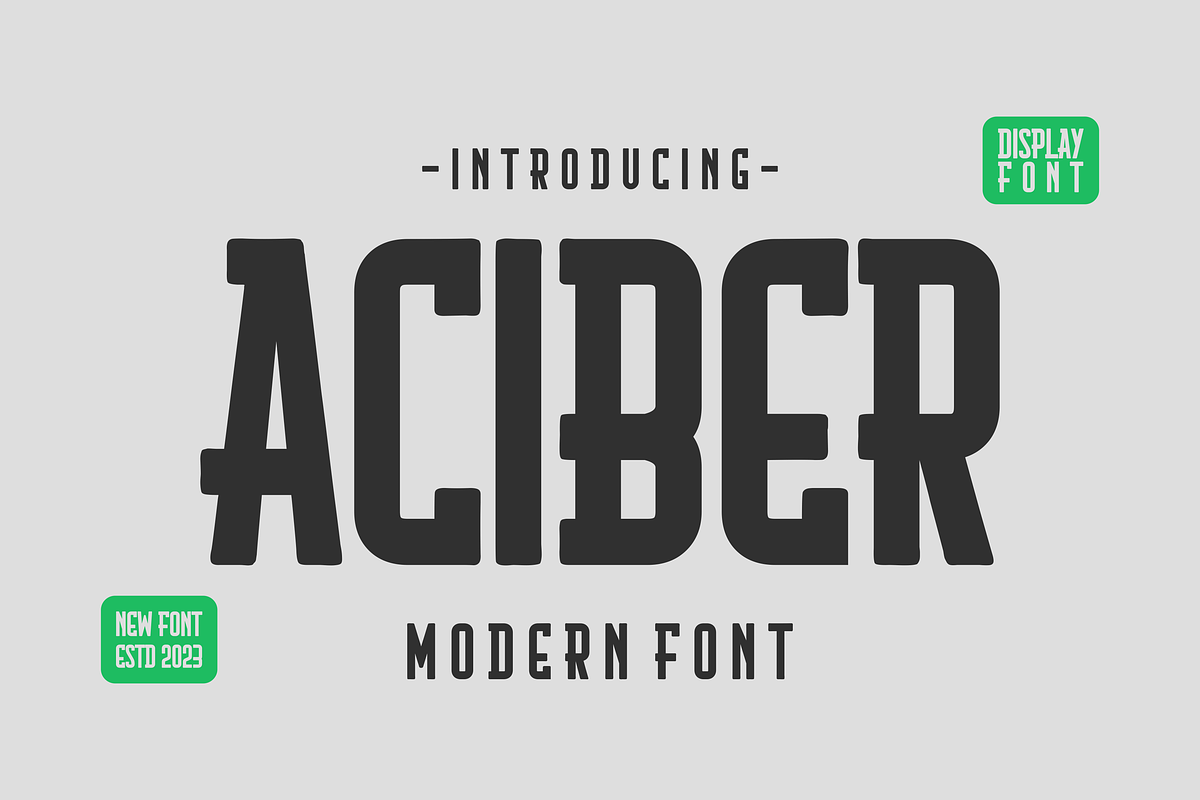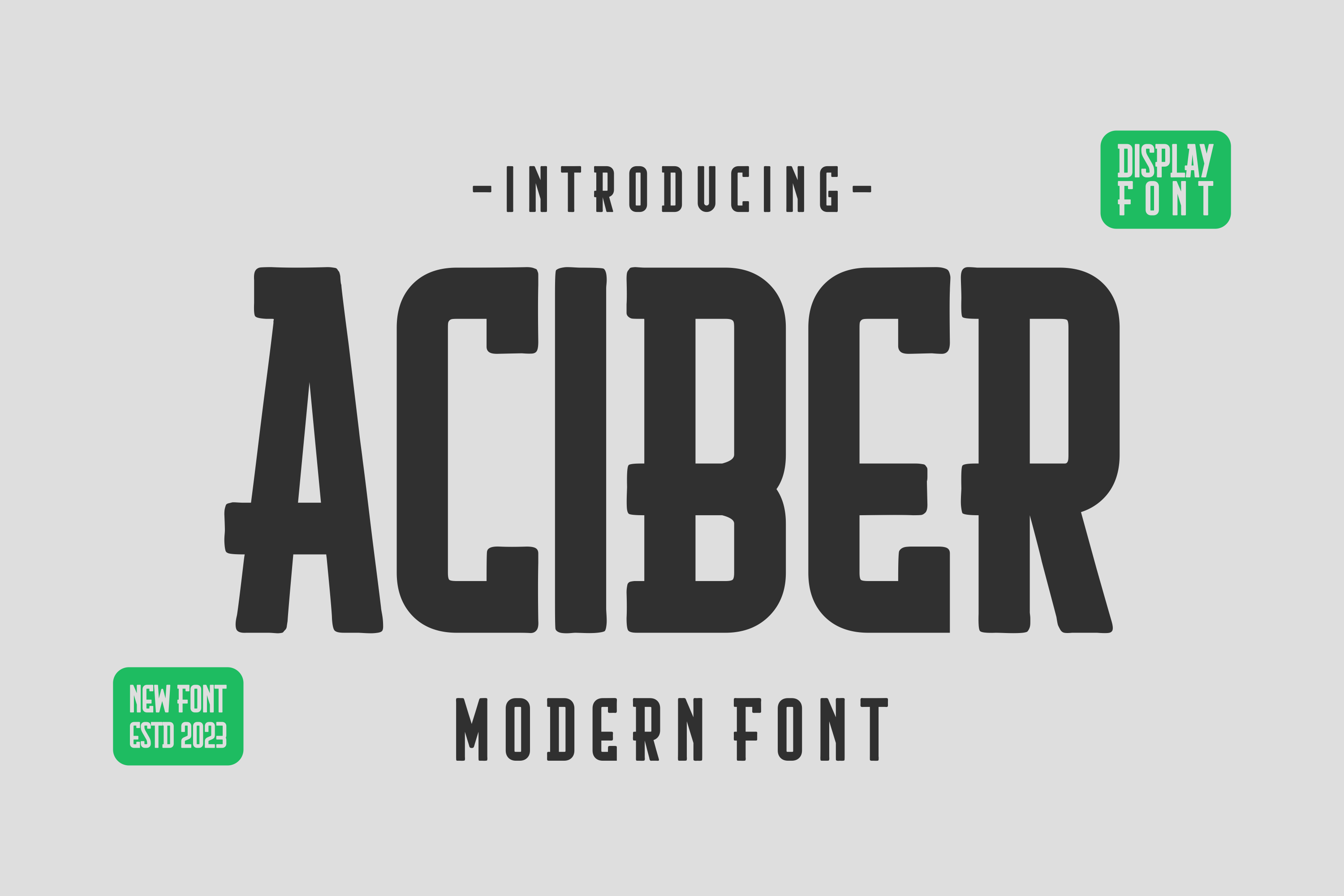
Aciber - Slab Serif Font
Perfectly suited on print/screen. it’s perfect for Branding, name card, poster, logo, magazine, cover, banner, t-shirt and headers, or even large-scale artwork.